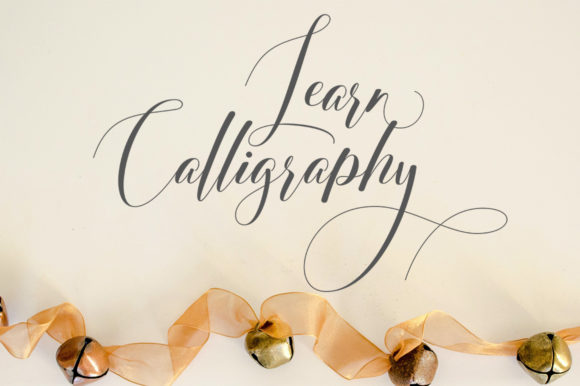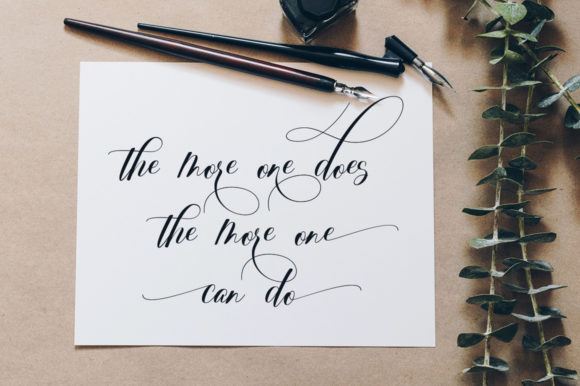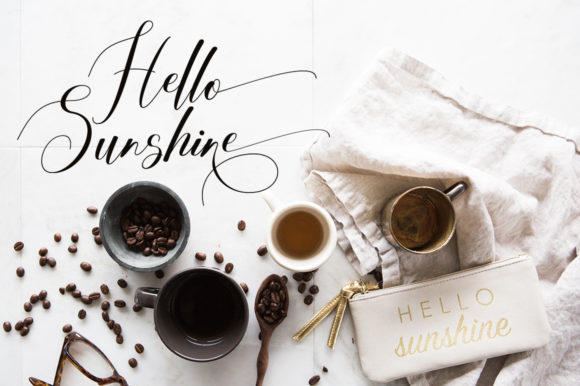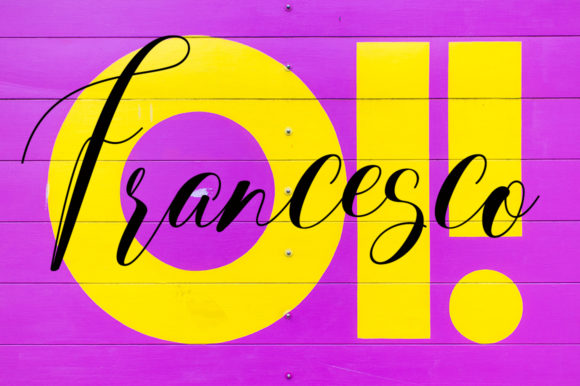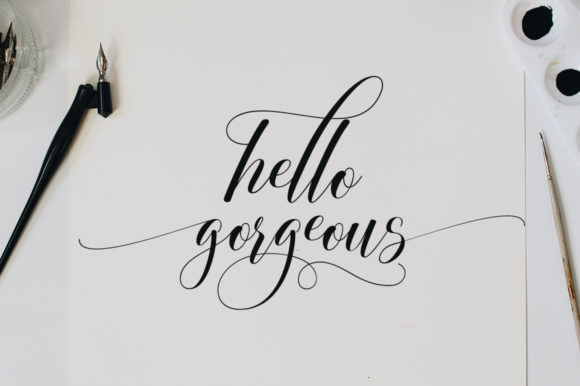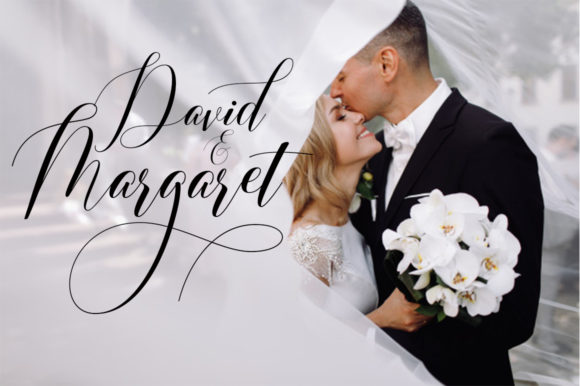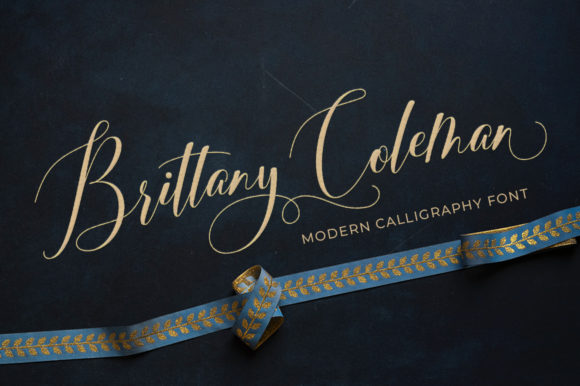
Brittany Coleman Font: Elevate Your Designs with Elegance and Charm
Are you on the hunt for a font that exudes sophistication, elegance, and a touch of whimsy? Look no further than the Brittany Coleman font. This beautiful, handwritten font is perfect for designers and crafters seeking to add a dash of personality to their projects. In this article, we’ll dive into the world of Brittany Coleman, exploring its unique characteristics, uses, and benefits.
The Essence of Brittany Coleman Font
Brittany Coleman is a graceful and timeless handwritten font that boasts an authentic charm. Its elegant strokes and flowing curves make it an ideal choice for a wide range of design applications. Whether you’re working on a formal or informal project, this font is sure to impress. From wedding and birthday invitations to greeting cards and more, Brittany Coleman brings a touch of magic to every design.
What Makes Brittany Coleman Font So Special?
So, what sets Brittany Coleman apart from other fonts? Here are a few key features that make it a standout:
- Handwritten elegance: Brittany Coleman boasts a beautiful, handwritten aesthetic that’s perfect for designs that require a personal touch.
- Timeless appeal: This font’s classic charm ensures it will never go out of style, making it a great investment for designers and crafters.
- Versatility: Brittany Coleman looks stunning on both formal and informal designs, making it a versatile addition to your font collection.
- Easy to read: Despite its elegant appearance, Brittany Coleman is surprisingly easy to read, making it perfect for body text and headlines.
Using Brittany Coleman Font in Your Designs
Now that we’ve explored the benefits of Brittany Coleman, let’s discuss how to incorporate it into your designs. Here are a few ideas to get you started:
- Wedding invitations: Add a touch of romance and elegance to your wedding invitations with Brittany Coleman.
- Birthday cards: Make your birthday cards stand out with this beautiful font’s playful, yet sophisticated charm.
- Greeting cards: From get-well cards to thank-you notes, Brittany Coleman is the perfect choice for any occasion.
- Branding and packaging: Use Brittany Coleman to add a personal touch to your brand’s packaging and marketing materials.
Tips for Working with Brittany Coleman Font
To get the most out of Brittany Coleman, here are a few tips to keep in mind:
- Pair it with complementary fonts: Combine Brittany Coleman with clean, modern fonts to create a striking contrast.
- Experiment with colors: Try pairing Brittany Coleman with a range of colors to find the perfect match for your design.
- Use it sparingly: While Brittany Coleman is a beautiful font, it’s best used sparingly to avoid overwhelming your design.
In conclusion, the Brittany Coleman font is a stunning addition to any designer’s or crafter’s toolkit. Its elegant, handwritten charm and timeless appeal make it perfect for a wide range of projects. Whether you’re working on a formal or informal design, Brittany Coleman is sure to impress. So why wait? Get inspired by its authentic charm and add it to your favorite projects today!